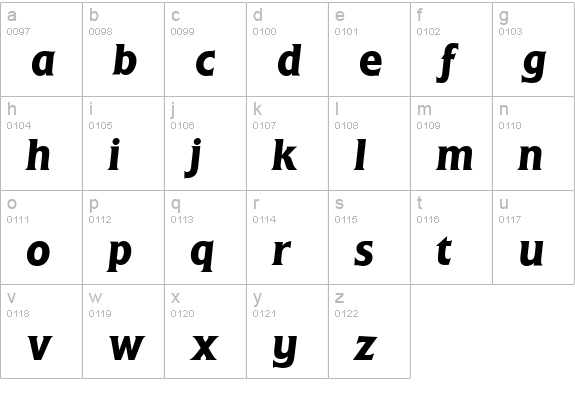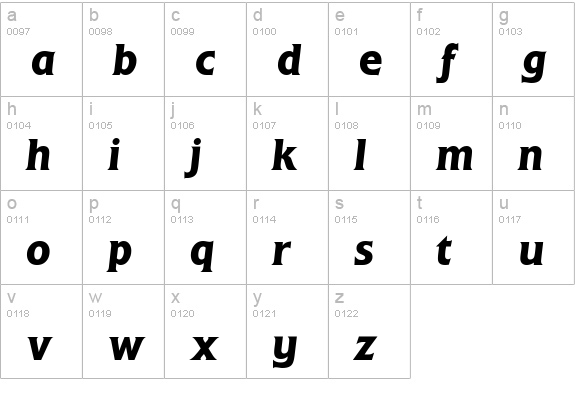
Fleming-BoldItalic font is a striking and elegant typeface that exudes sophistication and style. With its bold yet playful italic design, this font is perfect for adding a touch of flair to your projects. Whether you're designing a logo, creating a poster, or crafting a unique branding identity, Fleming-BoldItalic is sure to make a statement. Best of all, Fleming-BoldItalic font is available for free download at FontsMarket.com. This means you can easily access this beautiful font and use it in your designs without any cost. Don't miss out on the opportunity to enhance your creative projects with the timeless appeal of Fleming-BoldItalic font. Download it today and elevate your design work to the next level.